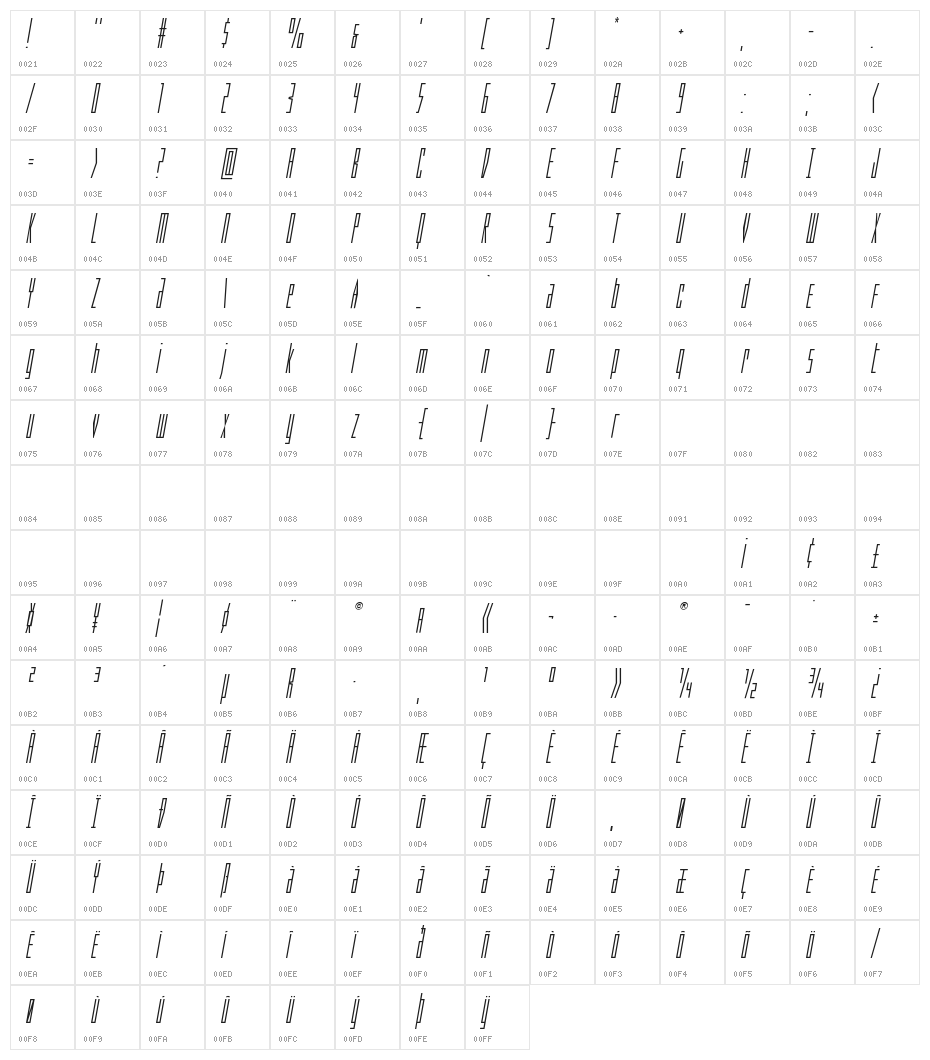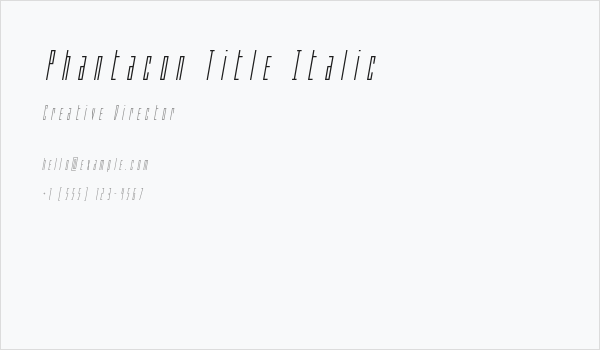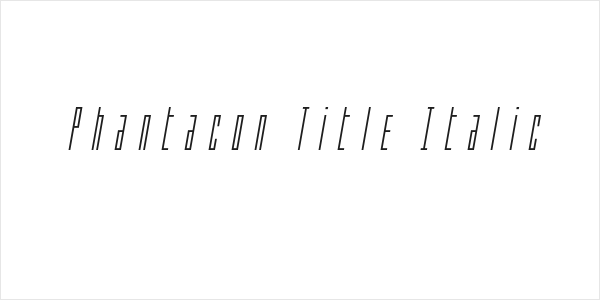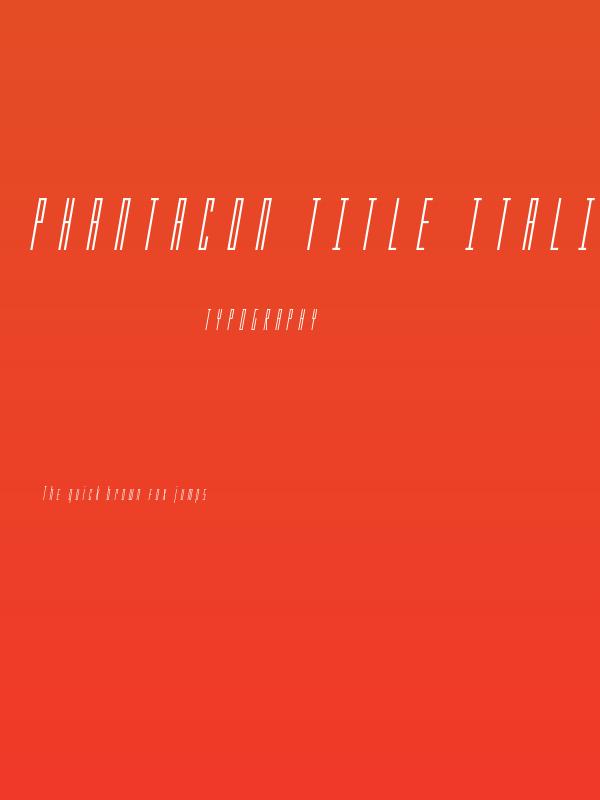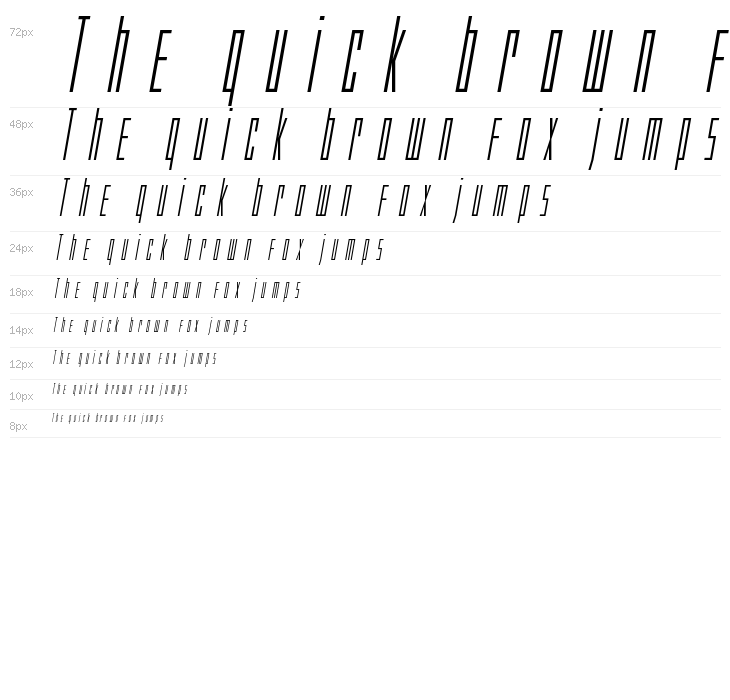
Phantacon Title Italic Font
Phantacon Title Italic Description
This font features a sleek, elongated design with a distinct italic slant, giving it a dynamic and forward-moving appearance. The characters are tall and narrow, with sharp angles and clean lines that convey a sense of modernity and sophistication. The uppercase and lowercase letters maintain a consistent style, while the numerals and special characters integrate seamlessly into the overall aesthetic. The font's minimalistic approach, combined with its italic nature, makes it suitable for projects that require a touch of elegance and speed.
Proposed ProjectsIdeal for modern branding, tech-related designs, futuristic posters, and dynamic headlines.